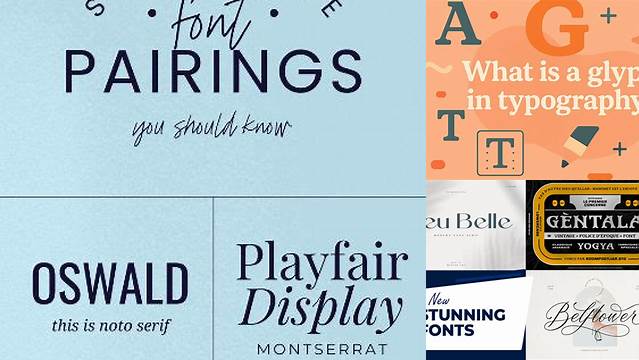
Discover Stunning Fonts: Your Guide To Typography
Hey guys! Let's dive into the amazing world of beautiful fonts! Whether you're a designer, a writer, or just someone who loves a good-looking text, choosing the right font can make a huge difference. Think of it like this: your words are the message, and the font is the outfit. A well-chosen font can grab attention, set the mood, and make your message pop. In this guide, we'll explore everything about beautiful fonts, from classic choices to the latest trends, and how to use them effectively. We'll break down different font types, talk about where to find them, and give you tips on how to create visually stunning designs. So, buckle up, because we're about to embark on a journey that will transform the way you see text!
What Makes a Font "Beautiful"?
Alright, so what exactly makes a font “beautiful”? It's not just about looks, although aesthetics play a big role. The beauty of a font is subjective, but there are some key elements that contribute to a font's appeal and effectiveness. First off, beautiful fonts often have strong visual characteristics. This means clean lines, balanced proportions, and a cohesive design across all the characters. Think about the curves of the letters, the spacing between them, and how they interact with each other. A beautiful font is easy on the eyes and inviting to read. It doesn't strain the reader, and it helps them focus on the message, not the design itself. Versatility is another essential quality. Beautiful fonts are often flexible enough to work in various contexts, from headings and body text to logos and branding materials. They can convey different moods and tones depending on how they’re used. For instance, a delicate script font might be perfect for a wedding invitation, while a bold sans-serif font would be ideal for a tech company's website. The beauty of a font extends beyond its individual characters. The readability and legibility are critical elements, especially when dealing with larger chunks of text. A beautiful font ensures that your text remains accessible and easy to understand at various sizes and on different devices. Good spacing between letters, words, and lines is essential for comfortable reading. In addition, cultural and contextual relevance is also significant. What's considered beautiful can vary widely depending on cultural preferences, historical periods, and the specific audience. In some cases, a vintage or retro font can enhance the design if it complements the message and evokes nostalgia. It's also about creating a harmony between the text and the context. A beautiful font enhances the overall design and doesn't distract from the content.
Considerations for Visual Appeal
When looking at beautiful fonts, consider elements like the x-height, which affects how the font appears at various sizes. A larger x-height makes the font more legible. The contrast between thick and thin strokes in a typeface impacts the font's elegance and visual interest. Be mindful of the font's personality. Does it fit your brand's image? It should resonate with your target audience. Always test your font in different sizes and contexts to check for readability and visual appeal. Remember, a beautiful font isn't just about appearances; it's about how well it communicates the message, enhances the overall design, and connects with the audience.
Exploring Different Font Families: A Deep Dive
Let's break down the different font families that form the foundation of typography. Understanding these families is crucial to choosing the best beautiful fonts for your projects. The first family is serif fonts. These fonts have small strokes, called serifs, at the ends of the letters. Think of Times New Roman or Garamond. Serif fonts are known for their classic look and are often used for body text because the serifs guide the eye horizontally, making reading easier. They're considered a safe and trustworthy option. Next up are sans-serif fonts. Sans-serif fonts, like Arial and Helvetica, lack serifs. They have a more modern and clean appearance. Sans-serif fonts are great for digital displays and modern designs. Their simplicity and clarity make them popular for website content and headlines. There are also script fonts. Script fonts mimic handwriting and add a personal, elegant touch. These fonts can range from formal to casual, and are often used for invitations, logos, and decorative purposes. Common examples include scripts like Brush Script and Lobster. Monospace fonts are another type of font family. In monospace fonts, each character takes up the same amount of horizontal space. These fonts are often used for coding and technical documents because they make it easy to align text and distinguish between different characters. Then we have display fonts. Display fonts are designed for headlines, titles, and short bursts of text, aiming to grab attention. These are usually unique and stylized, varying widely in design. Understanding these families will help you narrow down your options and start selecting the perfect beautiful fonts for your specific needs.
Serif Fonts: The Classics
Serif fonts are an enduring choice, offering a timeless feel. They are considered a classic for good reason. The serifs provide visual cues, and help guide the eyes across the page, enhancing readability. They evoke feelings of tradition, sophistication, and credibility. Serif fonts have a certain elegance that can elevate any piece of writing, from novels to academic papers. They're great for body text because of their legibility in large blocks of text. However, because of their formal appearance, they're not suitable for every context. Beautiful fonts like Times New Roman and Georgia are excellent choices for long-form content. They offer a sense of authority and are widely respected for their readability. These fonts can also bring warmth and personality to the text. Consider them for books, articles, and official documents. They are an excellent option if you aim to create a sense of trust and familiarity. The use of serif fonts is particularly effective if you're targeting an audience that values tradition or seeks an impression of professionalism.
Sans-Serif Fonts: Modern and Clean
If you're aiming for a modern and minimalist look, sans-serif fonts are your go-to choice. They lack serifs and convey simplicity, making them ideal for digital media and modern designs. These fonts exude a clean, uncluttered aesthetic that appeals to a wide audience. They are known for their excellent readability on screens, especially at smaller sizes. This makes them perfect for website content and user interfaces. Think about the brands that use sans-serif fonts; they often project a sense of innovation, modernity, and approachability. Beautiful fonts such as Arial, Helvetica, and Open Sans are popular choices due to their clarity and versatility. They can be used in both headlines and body text, creating a cohesive design. They are particularly well-suited for technology companies, startups, and brands that want to appear contemporary. Sans-serif fonts are also a great choice for mobile devices, ensuring your content is easy to read. This ensures that your design is both visually appealing and user-friendly, keeping pace with the evolution of digital design.
Script Fonts: Adding Elegance
Script fonts bring an element of artistry and personality to your designs, offering a touch of elegance and sophistication. Mimicking handwriting, they add a personal and human touch that can captivate your audience. These fonts are great for adding a flair to your brand, and they're a favorite in invitations, logos, and decorative purposes. Because of their unique characteristics, they are typically best used sparingly. Beautiful fonts such as Brush Script and Lobster can be used to enhance branding and evoke a sense of elegance or playfulness. However, be cautious when using script fonts for body text. They may be challenging to read in large blocks. These fonts are ideal for adding personality to a design, such as wedding invitations or creating a sense of luxury. When used correctly, script fonts can transform a design from ordinary to extraordinary.
Display Fonts: Making a Statement
Display fonts are designed to grab attention and make a statement. They're a fantastic choice for headlines, titles, and short bursts of text. With various styles, from bold and eye-catching to quirky and unique, these fonts aim to make your text stand out. They are less about readability and more about making a visual impact. Beautiful fonts in this category are designed to capture your audience's attention. Display fonts can be very stylized, and are great for designs that need to stand out. They’re perfect for posters, billboards, and branding materials. But always use them sparingly. They're designed to be the highlight, not the entire show. The key is to use them selectively to create an eye-catching and memorable design.
Where to Find Beautiful Fonts
Now that you know about the various font families, let's dive into where to find these beautiful fonts. There are plenty of resources available, from free options to premium platforms. Google Fonts is one of the most popular. It's a library of open-source fonts that you can use for free. This is an excellent option if you're starting and want a wide variety of choices without spending any money. Then there's Font Squirrel. This is another amazing source for free, high-quality fonts. They offer a curated collection of fonts that are free for commercial use. It's worth exploring for unique and eye-catching fonts. Adobe Fonts, formerly Typekit, offers a massive library of fonts. While it's a paid service, it's included with your Adobe Creative Cloud subscription. You can access thousands of fonts and sync them across all your devices. Then there are premium font foundries, such as MyFonts and FontShop. These sites offer a vast selection of professionally designed fonts. While they're not free, the quality and variety are hard to beat. Explore the different platforms and experiment to find what works best for your projects. Remember to always check the license terms to make sure you can use the font the way you want.
Free Font Resources
If you're on a budget, or just starting out, free font resources are a godsend. Sites like Google Fonts offer a great selection of beautiful fonts for various design needs. Not only are these fonts free, but they're also open-source, meaning they're free for commercial use. Font Squirrel is another great source of free fonts. Their selection is curated, guaranteeing high quality. Always make sure you check the license before using a font, but most fonts from these resources are free for both personal and commercial projects. Using free fonts is a fantastic way to start exploring typography and developing your design skills. As you explore these resources, pay close attention to each font’s characteristics. Consider how they fit your design goals and your branding requirements. These resources also provide options to download fonts that can enhance your projects. The key to success is to explore and experiment to understand what best suits your needs.
Premium Font Platforms
For those willing to invest in their design, premium font platforms offer a world of possibilities. Platforms like MyFonts and FontShop are among the best. They provide a vast selection of professionally designed, high-quality fonts. These fonts are designed by professional typographers and come with various licenses. Investing in premium fonts will significantly enhance your designs, especially for branding, corporate communications, and professional projects. With a wider selection of fonts and more licensing options, premium platforms are a worthy investment for businesses. When choosing premium fonts, think about your brand's identity and goals. Consider if the font fits with the rest of your branding, and make sure it aligns with your design requirements. By investing in premium fonts, you can ensure your designs are both visually striking and legally compliant. These platforms provide an extensive selection of beautiful fonts.
Pairing Fonts: Creating Visual Harmony
Now that you know where to find your beautiful fonts, let's talk about font pairing, which is the art of combining fonts in a way that creates visual harmony. Choosing two or three fonts that complement each other is a great way to give your design depth and interest. The key is to find a balance between contrast and cohesion. One common pairing strategy is to combine a serif and a sans-serif font. This combination provides a clear distinction between your headings and body text, and it is visually appealing and easy to read. Another option is to pair a bold display font with a more subdued body font. This is useful for drawing attention to your headlines while ensuring your body text remains easily readable. You can also use different weights and styles of the same font family to create harmony. This creates a consistent look while adding variety and visual interest. When pairing fonts, it's important to consider the overall tone of your design. Certain combinations evoke different moods. Experiment with different pairings until you find one that fits your message. Always prioritize readability and visual appeal. Consider the context and use of the fonts. The goal is to create a visually pleasing design.
Tips for Successful Font Pairing
Successful font pairing comes down to understanding contrast and cohesion. Contrast helps differentiate your fonts and adds visual interest, while cohesion ensures your design looks harmonious. Start by exploring different fonts and see what looks good together. Consider the personality of each font and how it complements the other. Balance is key. Avoid pairing fonts that are too similar, as they can clash, and avoid overly contrasting combinations that are jarring. Always test your font pairings at different sizes and in different contexts. This ensures that your choices remain legible and appealing across various applications. Choose a font combination that reflects your brand's personality and the message you want to convey. Focus on readability. Your font pairing should enhance the reading experience, not detract from it. You will find that the more you practice and experiment, the better you'll get at font pairing.
Font Pairing Examples and Inspiration
Looking for some inspiration? Here are a few beautiful fonts pairings. Pair a classic serif font, like Playfair Display, with a clean sans-serif, like Open Sans, to get a combination that is both elegant and readable. The contrast adds visual interest while keeping the text easy to read. Combine a bold display font, such as Bebas Neue, with a reliable body font, such as Lato. This pairing is perfect for making headlines stand out while maintaining a comfortable reading experience. The impact of a combination like this is high, perfect for websites. Choose different styles of the same font family, like Montserrat. Use different weights and styles within the same font. This guarantees visual consistency while allowing for variety. Always seek inspiration from websites, magazines, and design portfolios. Study what works well and what doesn't. The more you expose yourself to good design, the better you’ll become at making excellent choices. Start experimenting with different pairings to discover your personal preferences and refine your design skills.
Mastering Typography: Tips and Tricks
Let's dive into some pro tips and tricks to help you master typography and use beautiful fonts effectively. First, understand the hierarchy in your text. Use different font sizes, weights, and styles to emphasize important information and guide the reader's eye. Then, pay attention to spacing. Proper spacing between letters, words, and lines is critical for readability and visual appeal. Also, adjust the kerning, which is the space between specific pairs of letters. Correct kerning can significantly improve the appearance and readability of your text. Leading, which is the space between lines of text, is crucial for readability, especially in body text. Experiment to see what looks best for your font and design. Then there's alignment. Align your text appropriately to create a clean, organized layout. Avoid centering large blocks of text. Left-aligned text is usually easier to read. Remember, consistency is key. Use consistent fonts and styles throughout your design to create a cohesive and professional look. By following these tips and tricks, you'll be well on your way to designing with beautiful fonts.
Enhancing Readability: The Key Principles
Readability is the cornerstone of good typography. Ensuring that your text is easy to read is essential for effective communication. Start by choosing fonts that are inherently readable, like those designed specifically for screen use or long-form content. The font size should also be right. It should be large enough to read comfortably, especially on mobile devices. Don't forget about line spacing. Adjusting the leading to a comfortable level will make your text easier on the eyes. Pay attention to color contrast. High contrast between the text and background is essential for legibility. Avoid using light text on a light background or dark text on a dark background. Also, ensure that you understand the context. Consider the size of the device, and make sure your text is responsive and adjusts well. Consider the visual hierarchy. This is important to guide the reader's eye and highlight key information. Use different font weights, sizes, and styles to create contrast and draw attention. By focusing on these key principles, you will enhance the readability of your text.
Utilizing Font Weights and Styles
Font weights and styles add depth and dimension to your typography. They help you create a visual hierarchy and emphasize certain parts of your text. Use bold or heavy weights for headlines and important text. This helps make them stand out and attracts the reader's attention. Then, use italic styles to emphasize words or phrases. Remember to use them sparingly so that they retain their impact. Always remember to use different weights to vary the appearance of your text, especially in body text. Make sure the font is legible at all weights. Always test your font weights and styles across different contexts and devices. Experiment with the different weights and styles that are available to achieve the desired impact and highlight the most important elements of your design. Properly utilizing font weights and styles can take your design to the next level, making your text more engaging and readable.
Avoiding Common Typography Mistakes
Avoid these common beautiful fonts mistakes. Always select fonts with care. Don't use fonts that are difficult to read or look out of place. Be careful with the fonts you choose. Poor font choices will damage your message. It's essential to know how to choose the right font for your message. Also, avoid overusing different fonts. Using too many fonts can make your design look cluttered and unprofessional. Stick to a few fonts. Always maintain a consistent look and style. Never ignore the spacing. Poorly spaced text is challenging to read. Adjust kerning and leading. Never neglect the hierarchy of your text. Using different sizes and weights of your text will help the reader understand what is important. It will enhance your message. By avoiding these common errors, you will elevate your design work and create more effective communication.
Overusing Fonts
One of the most common mistakes is overusing fonts. It's tempting to use many different fonts in a single design to add variety and interest. However, this often leads to a cluttered and chaotic look. Sticking to a few fonts, typically two or three, creates a more cohesive and professional design. This also helps to create visual harmony. A general rule of thumb is to choose one font for headlines, one for body text, and possibly a third for accents or subheadings. By limiting your choices, you create a more unified and consistent look. This helps in branding, increasing readability, and creating a professional design. Always aim for visual consistency and clarity, and avoid the temptation to use too many fonts.
Ignoring Spacing and Kerning
Another mistake is to ignore spacing and kerning. Proper spacing is crucial for readability. Neglecting spacing between letters, words, and lines of text will make your text challenging to read and visually unappealing. Adjusting kerning, which is the spacing between specific pairs of letters, can greatly improve the look and readability of your text. Proper spacing ensures the text is readable. It prevents letters from overlapping and makes the text feel balanced. Take the time to fine-tune the spacing and kerning in your design. This will greatly improve the readability and appeal of your text. Always pay attention to spacing; it's a small detail that can significantly impact the look and readability of your designs.
Typography in Web Design: Best Practices
Typography is critical in web design. It is essential for creating an engaging and user-friendly website. Choose fonts that are readable on screens. Use web-safe fonts. These are designed to display well on all devices. Optimize your fonts for different screen sizes. Use responsive design techniques to ensure your text looks great on all devices. Choose a font that is appropriate for the tone of your website. Then, pay attention to the contrast between text and background. The contrast between the text and background is critical for readability. Use a background color that contrasts with the text to ensure easy readability. Make sure your text has the correct size, spacing, and alignment. Always test your website on different devices and browsers. Make sure your text looks great in all environments. Follow web design best practices. Always strive to improve the usability of your website. It's important for a user-friendly design.
Responsive Typography for Different Devices
Responsive typography is critical for web design. It ensures your text looks great on all devices, from desktops to smartphones. There are several things you can do. Start with font sizes. You can use relative units like ems or rems. These units will adjust the font size proportionally to the user's screen size. Then, use media queries to adapt your typography to different screen sizes. Use different font sizes, line heights, and spacing based on the screen size. You can control how your text behaves on different devices. Always test your website. Use a range of devices. It's essential to make sure your typography is easy to read. Good responsive typography will enhance the user experience. Your content should look great on every screen, ensuring that your website is accessible and user-friendly.
Optimizing Fonts for Web Performance
When optimizing fonts for web performance, the goal is to ensure your website loads quickly. Minimize the number of fonts you use. Reduce the number of font files. The fewer font files, the faster your website loads. Use web-friendly formats like WOFF and WOFF2. These formats are optimized for web use and support compression. Then, use font subsets. Subsetting your fonts means including only the characters you need. Use a CDN (Content Delivery Network) to host your fonts. This distributes your fonts across multiple servers, improving loading times. Test your website's loading speed. Always use a tool like Google PageSpeed Insights to monitor your website's performance. Optimize fonts. This will improve your website's speed and make your design look great.
The Future of Typography
The future of beautiful fonts and typography is exciting, with continuous advancements in technology and design trends. One trend is variable fonts. These are fonts that can be customized for weight, width, and other characteristics, offering great flexibility and design options. Another trend is the use of custom fonts. As more designers want to create unique brand identities, the demand for custom fonts will increase. Artificial Intelligence (AI) is also changing typography. AI can help with font generation, design, and optimization. Designers are exploring new visual experiences. Interactive typography will allow users to engage with text in innovative ways. As technology evolves, expect to see more creative and dynamic uses of typography. Typography will continue to evolve. It will integrate design, technology, and user experience.
Emerging Trends in Font Design
As the world of typography keeps evolving, we are seeing new trends that impact how we read and engage with text. Variable fonts are a major trend. This allows designers to customize the font's weight, width, and other properties. This offers flexibility and design options. The second trend is custom fonts. With the growing demand for unique brand identities, custom fonts will become more popular. These custom fonts reflect a brand's personality. Experiment with a variety of fonts. The third trend is animated typography. Designers create dynamic and engaging experiences. You can add animation, movement, and interactivity to the text. This brings text to life. Designers are also exploring more artistic and experimental fonts. Always stay updated on current trends to see what is coming next in design. These trends are impacting design and making the world of typography exciting.
The Role of Technology in Typography
Technology has a big impact on typography, creating new possibilities for designers. Artificial Intelligence (AI) is starting to play a role in font design. It helps generate and optimize fonts. Designers are using AI to speed up the creative process. Advances in display technology are also impacting typography. With high-resolution screens, fonts are displayed with greater clarity. This allows for more complex and detailed designs. Variable fonts, as mentioned earlier, are also enabled by technology. They provide a wide range of customization. Digital design tools are making typography more accessible to everyone. Software like Adobe Creative Cloud and Canva are making it easier. Technology is changing how we experience text and opening doors for innovation. The future of typography is closely connected with technological advancement, leading to new creative and exciting possibilities. Always remember how technology plays a role in making typography what it is now.